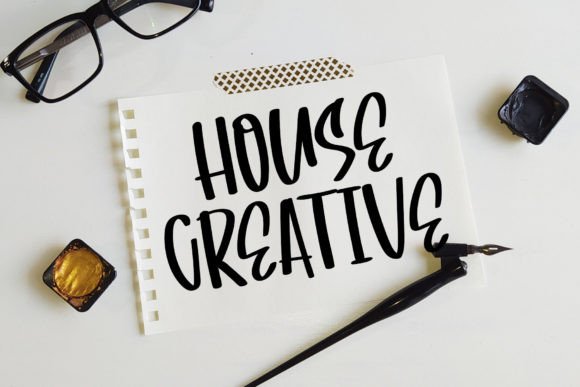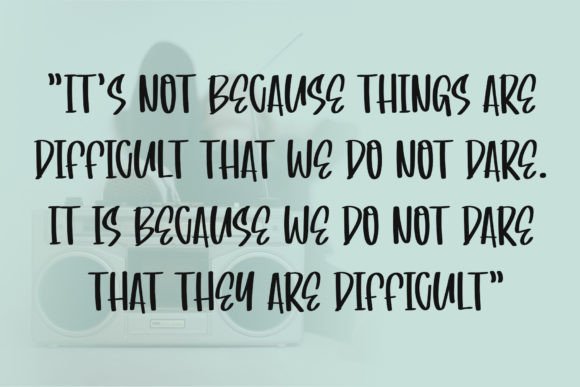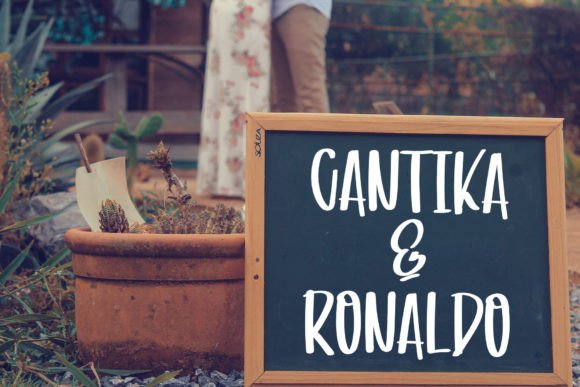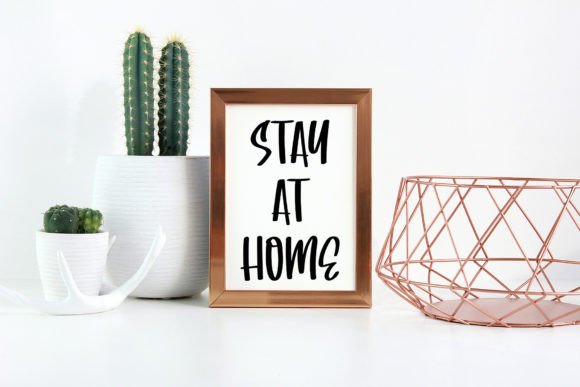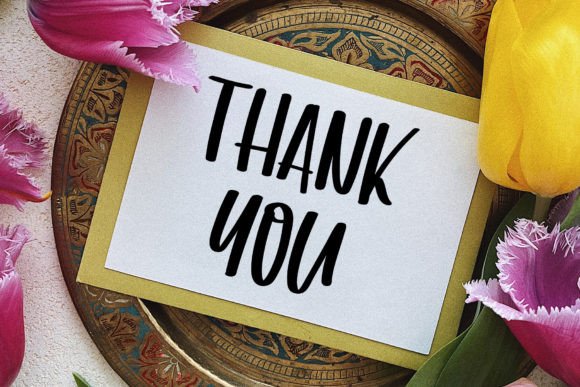
Introduction to Realtor Font
Remember that moment when you’re brainstorming ideas for a creative project and you just can’t find the right font to bring your vision to life? That’s exactly what happened to me when I stumbled upon the Realtor Font. Its unique charm and playful style instantly caught my attention, and I knew I had to learn more about this hidden gem.
As a designer, having access to high-quality fonts can be a game-changer. The Realtor Font is not only free to download but also offers a transparent background, making it perfect for any creative project. Whether you’re working on a DIY craft, designing a logo, or creating a digital graphic, this font is sure to add a touch of personality to your design.
Key Features of Realtor Font
- High-quality font with transparent background, ideal for creative projects and design resources.
- Designed with a unique, modern aesthetic, making it perfect for real estate, property, and architecture-related projects.
Honest Review: Realtor Font
I recently had the chance to work with the Realtor Font, a free download that promised high quality and versatility. I have to say, I was impressed. This font is perfect for any creative project that requires a touch of professionalism.
- ✨ Clean and modern design that’s easy to read
- ✨ High quality font that’s perfect for business use
- ✨ Transparent background, making it easy to work with
- ⚠️ Limited character set, which may not be ideal for complex designs
- ⚠️ Not suitable for creative projects that require bold, experimental typography
Overall, I’m impressed with the Realtor Font. It’s a solid addition to any designer’s toolkit, especially for business use. While it may not be perfect for every project, it’s a reliable resource that’s easy to work with. If you’re looking for a free, high-quality font for your next design project, the Realtor Font is definitely worth considering.
Getting the Most Out of Realtor Font
To get the most out of the Realtor Font, use it in conjunction with other design elements, such as images and graphics. Experiment with different font sizes and styles to create a visually appealing design.
The Realtor Font is commonly used for real estate listings, property marketing materials, and other design projects that require a professional and modern look.